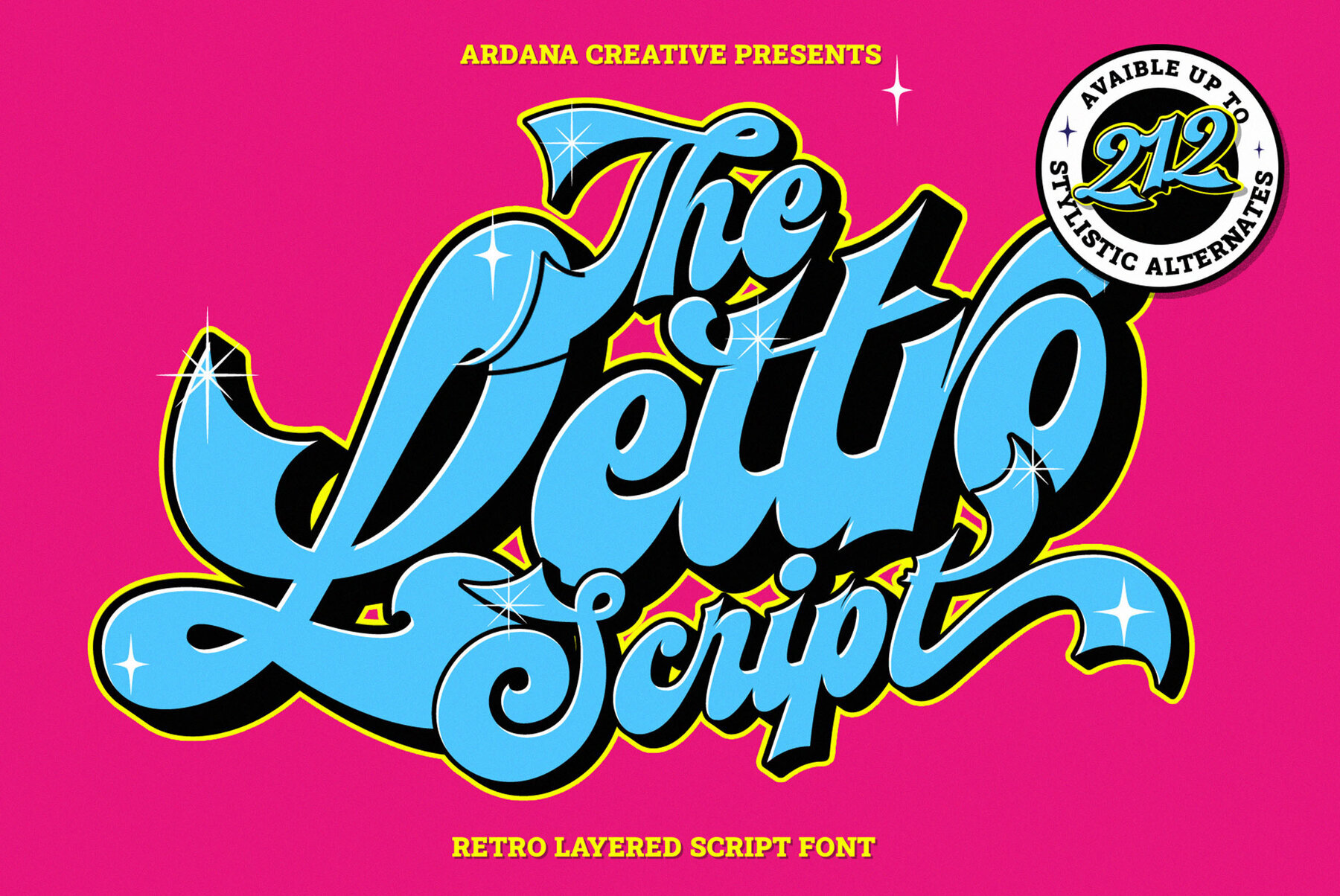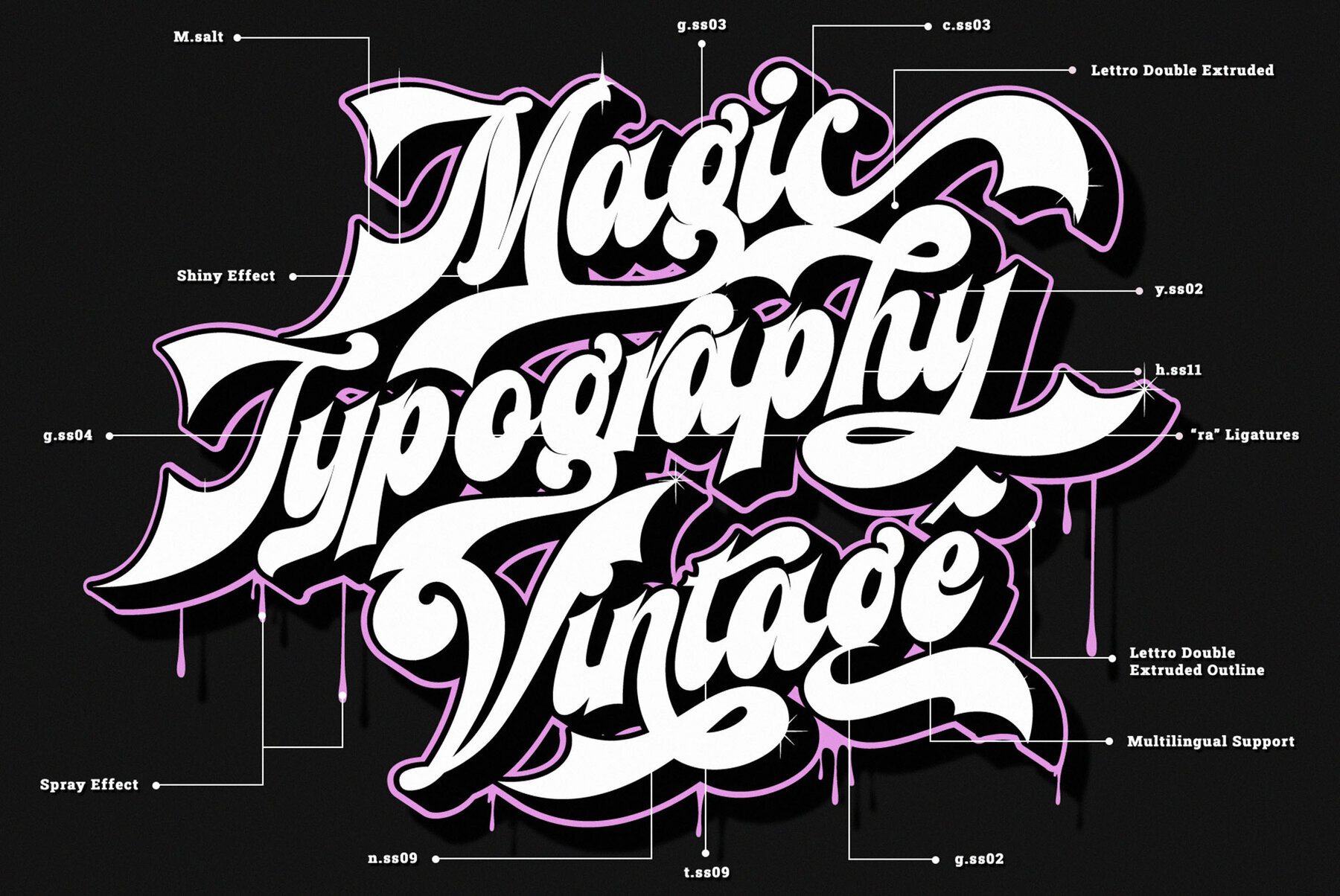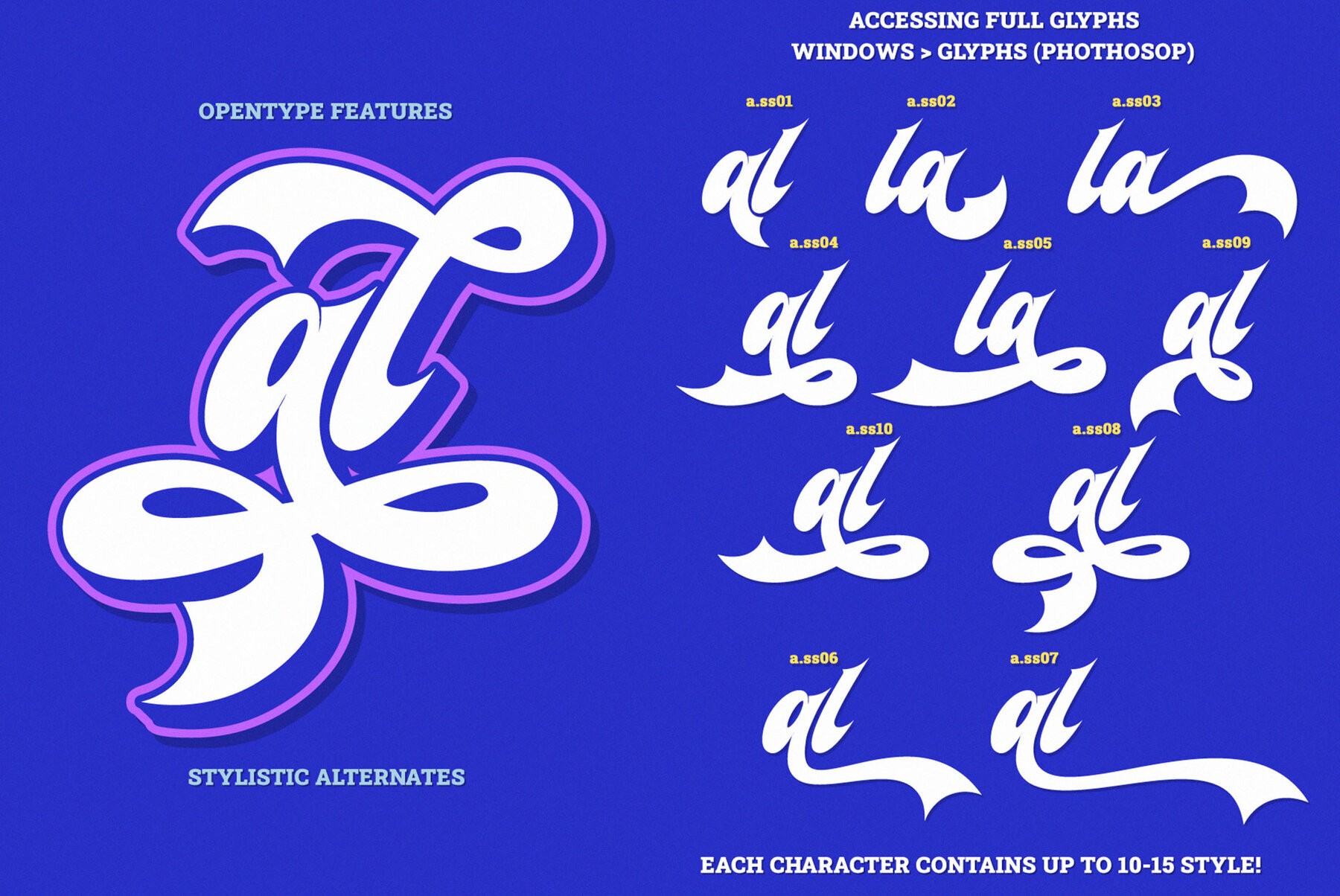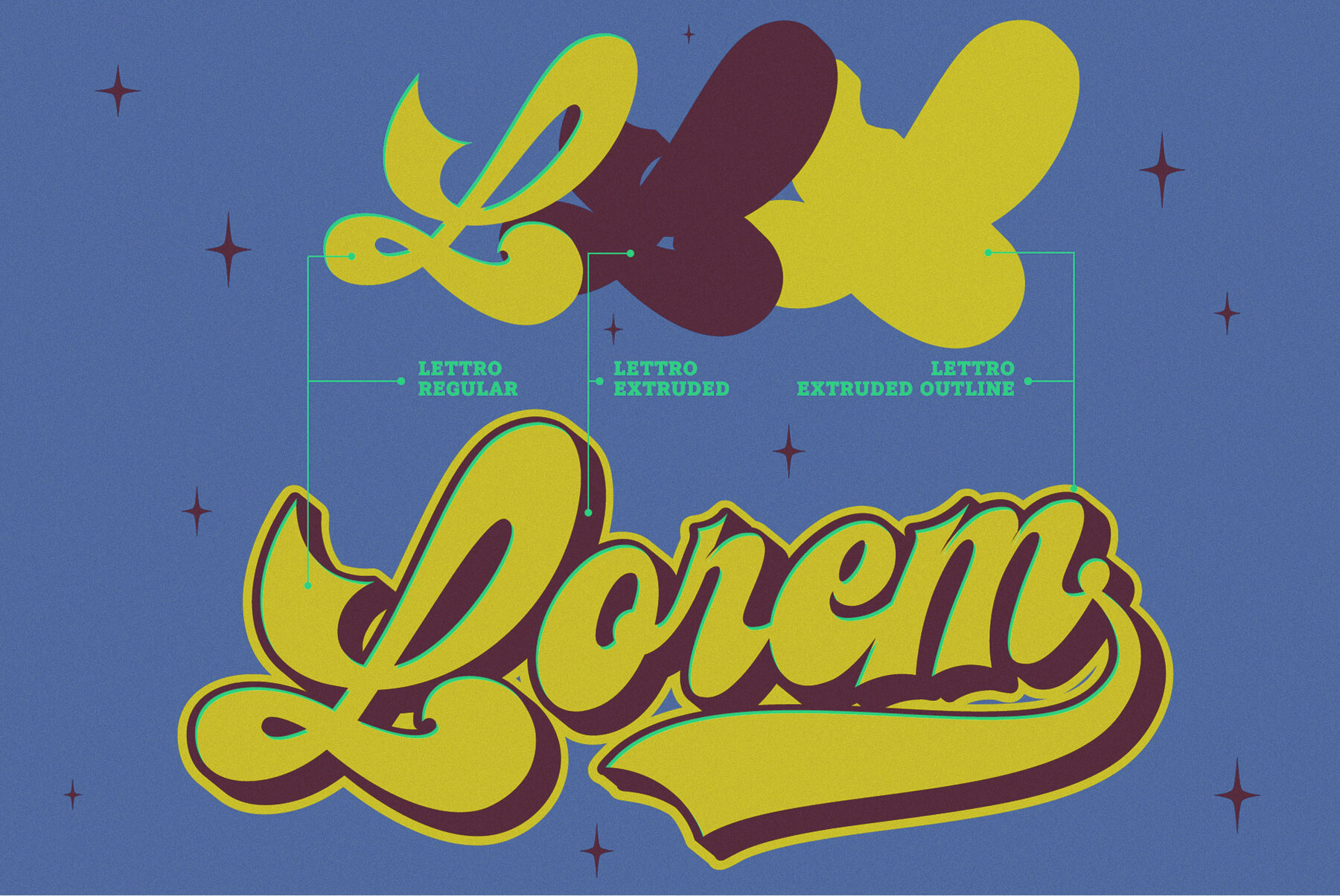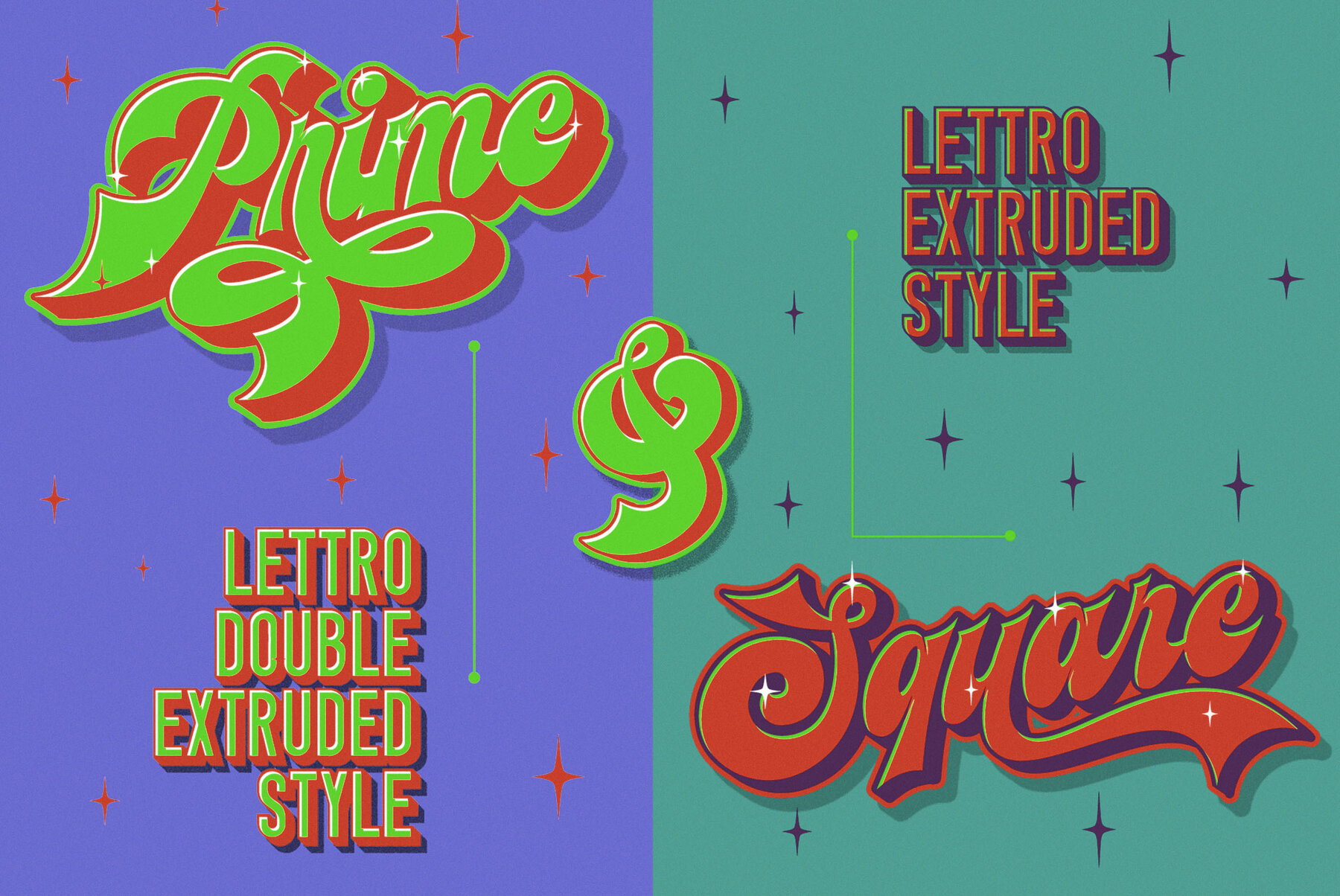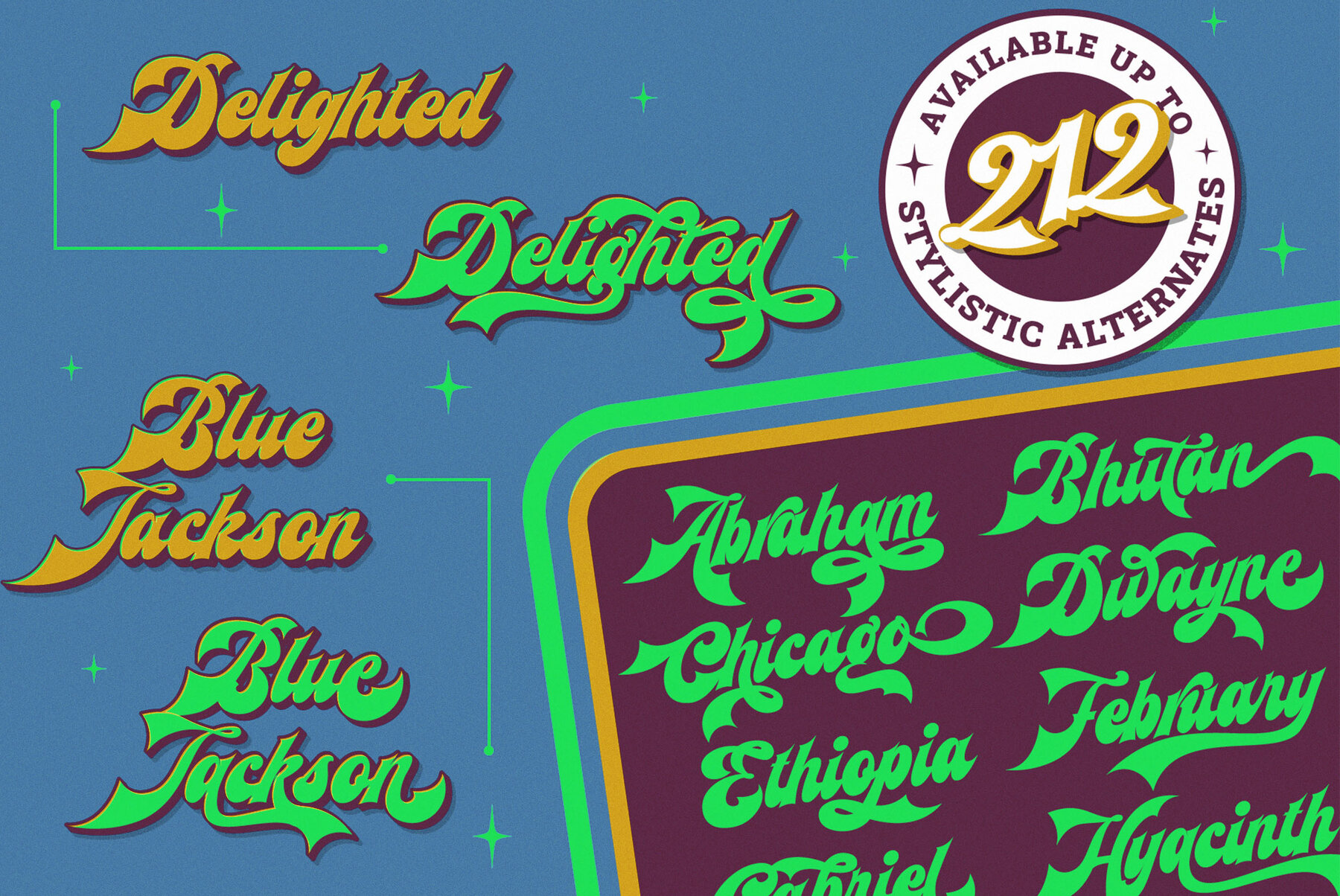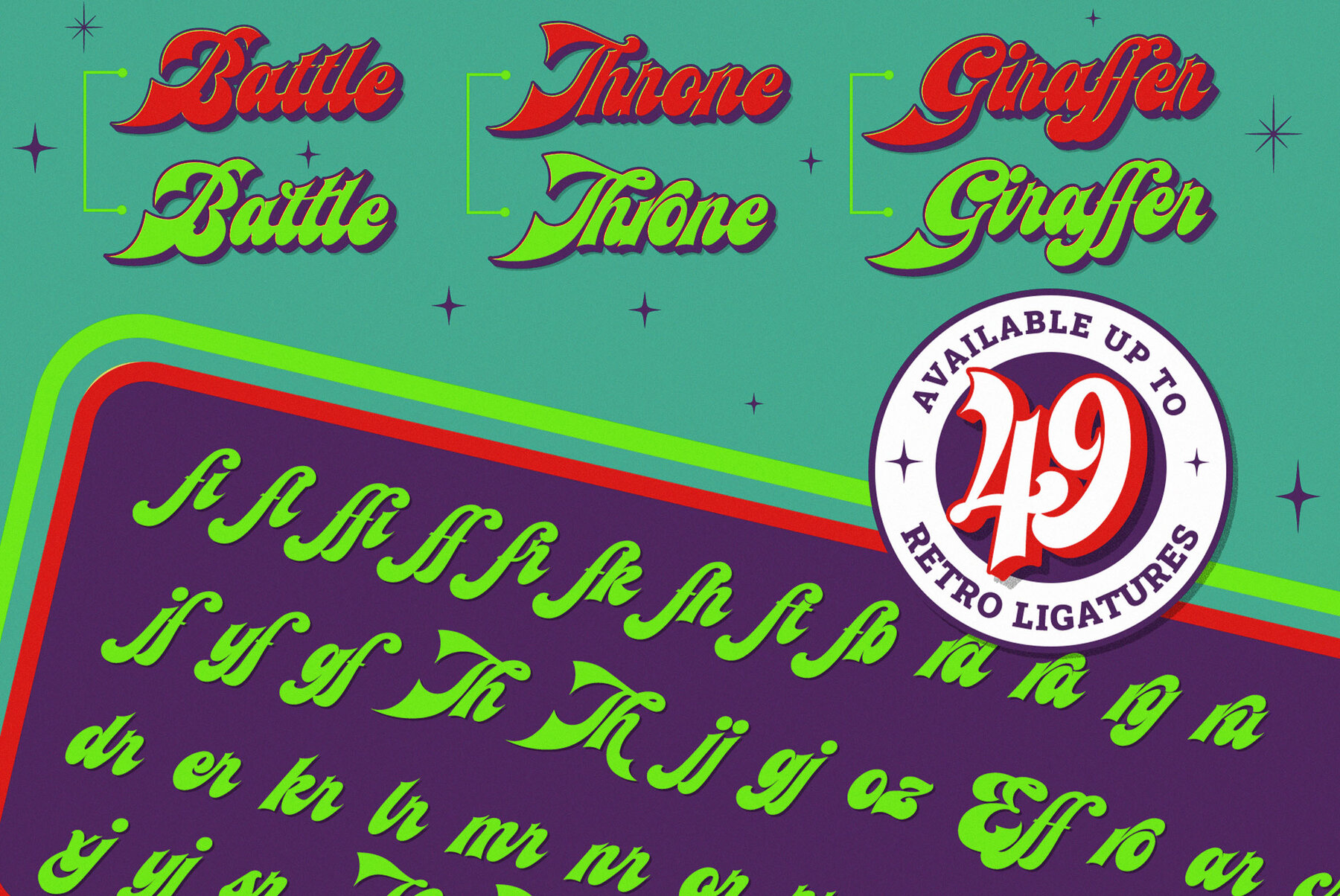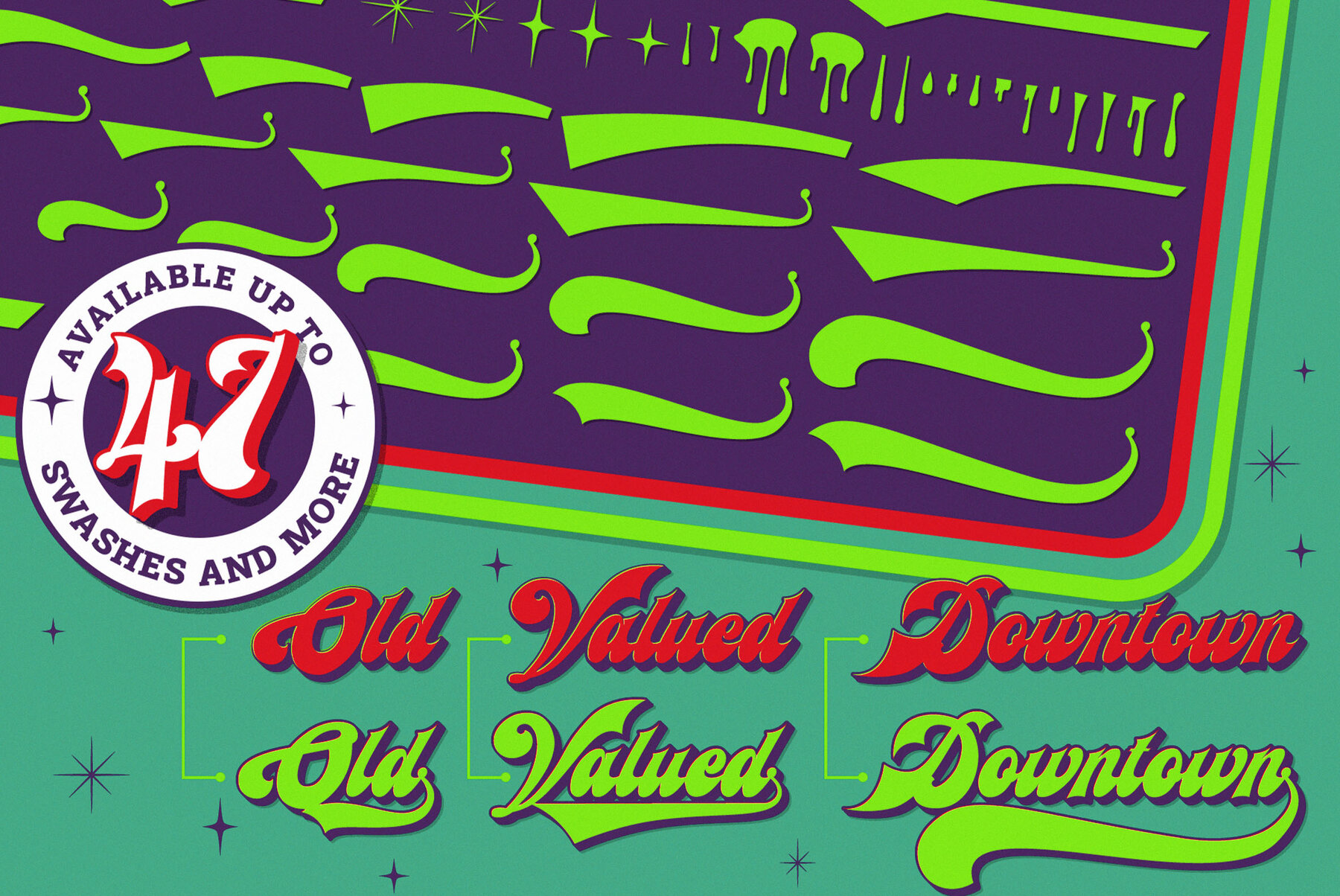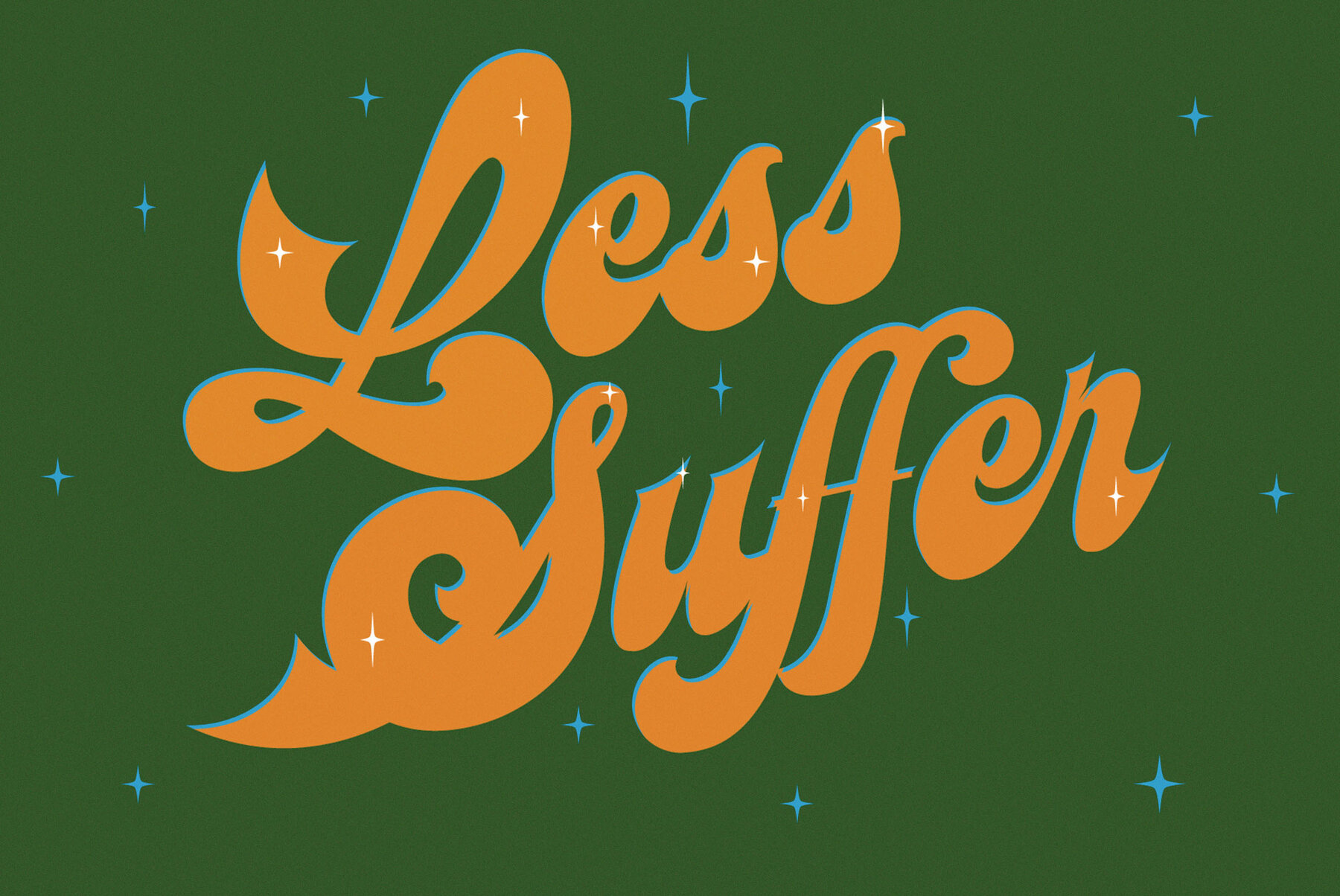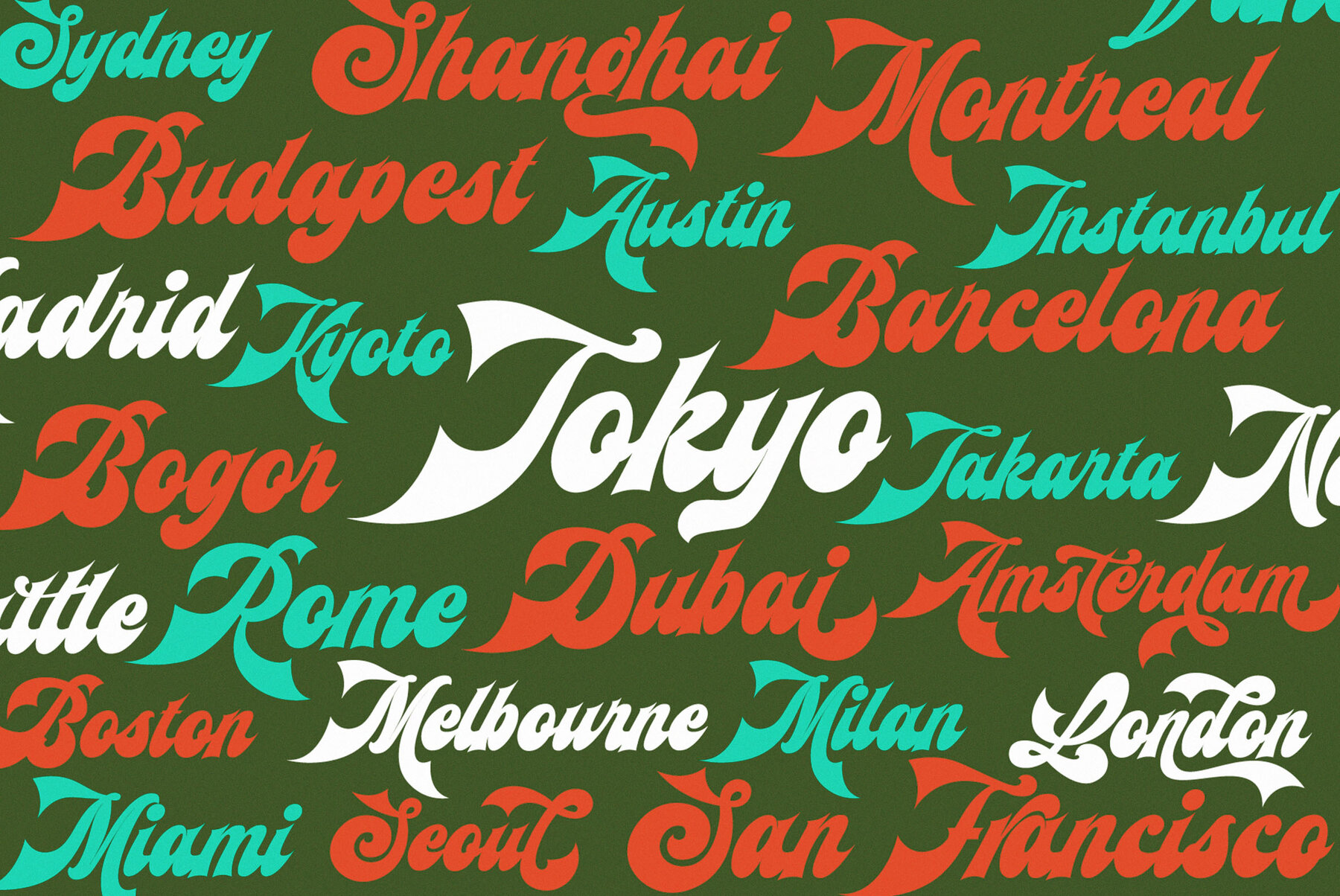
Lettro Font
Make your own retro design with Lettro Font!
Lettro is an exquisite bold script typeface inspired by the retro design from 70-80-ish.
Lettro is created with a ton of stylistic alternates, swashes, and ligatures, and also comes with 5 total Layered fonts: Regular, Extrude, Extrude Outline, Double Extruded, and Double Extruded Outline. Perfect fitted layer to give you more contrast, more bold look of the title. Every glyph for alternates is curated for the best and possible without eliminating the characteristic of these fonts!
Combine that many styles and create an awesome retro design!
This retro typeface is perfect for logotypes, t-shirts, vintage badges, retro quotes, branding, packaging, posters, signboards, social media needs, etc.
Lettro Features:
• A full set of uppercase & lowercase characters
• Layered Style
• Numbers & punctuations
• Multilingual language support
• PUA Encoded Characters
• OpenType Features
+563 Total Glyphs
+212 Stylistic Alternates
+49 Ligatures
+47 Swashes and more (Shiny and Spray Effect Included!)